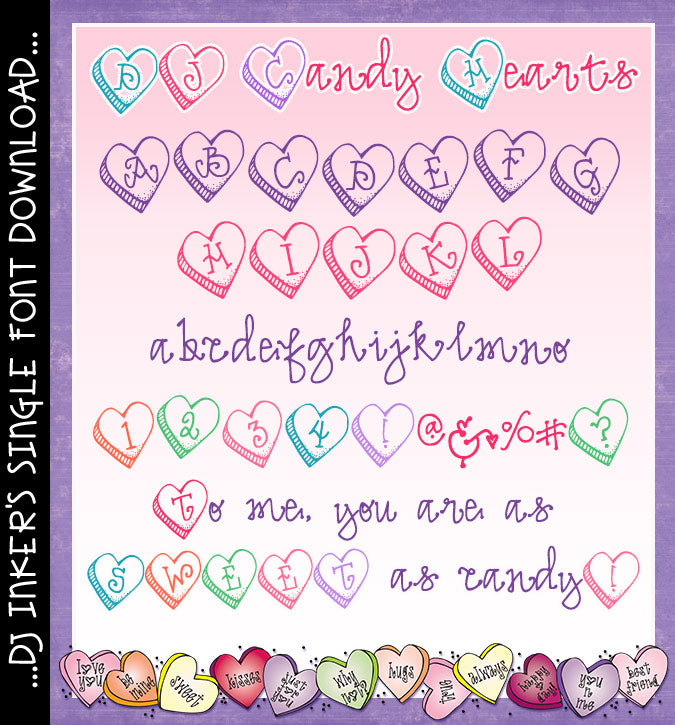
DJ Candy Hearts Font Download
Want to taste some deliciously cute lettering? DJ Candy Hearts font
is perfect for a sweet Valentine 'conversation' or love letter. Making
cards, gifts, party decorations and bulletin boards will be a real treat!